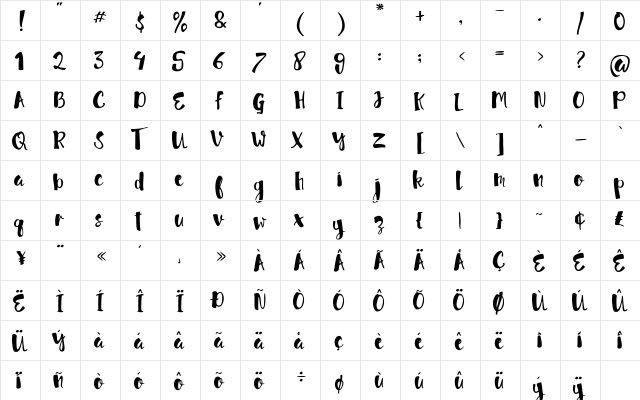
jellysugar Free Demo Regular
| Foundry | Queentype |
| Designer | Queentype |
Design Context for jellysugar Free Demo Typeface
jellysugar Free Demo is a composed and adaptable typeface that performs quietly and consistently across a wide range of design contexts.